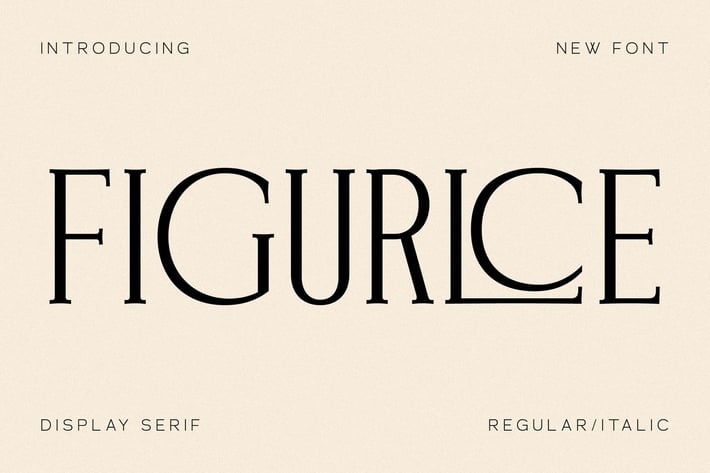
Figurlce Display Serif Font
Figurlce is a modern, bold display serif font designed with strong, geometric lines and sharp contrasts. Its elegant curves and sophisticated structure make it an excellent choice for creating high-impact headlines, posters, and branding materials that demand attention.
Bold and geometric display serif font
Includes Regular & Italic styles
Distinctive and sharp contrast for striking headlines
Elegant curves perfect for modern branding
Modern editorial layouts and magazine covers
High-impact branding and identity
Fashion and beauty campaigns
Posters and promotional materials
Event signage and invitations
A modern serif font with bold character and elegant curves — perfect for commanding attention in every design.*